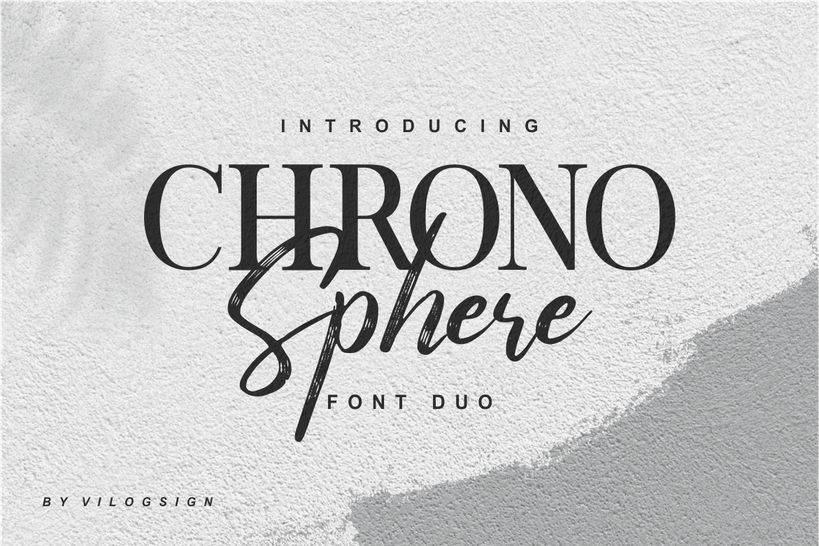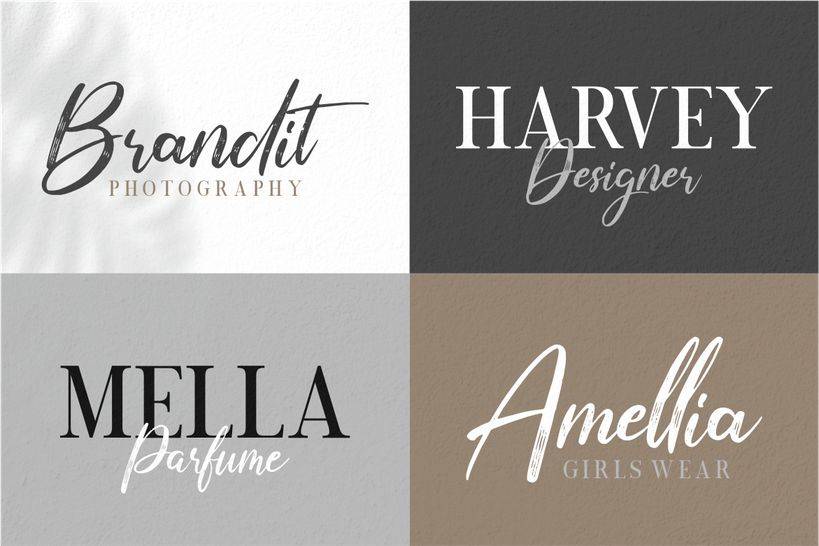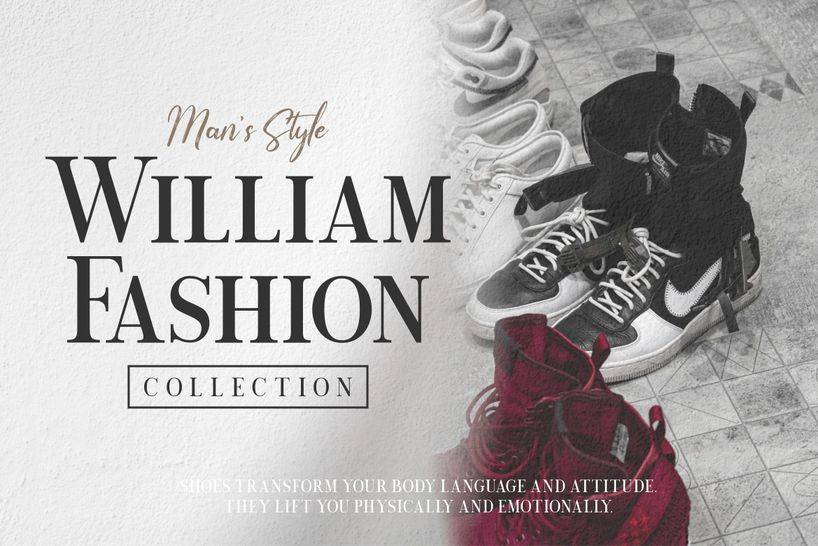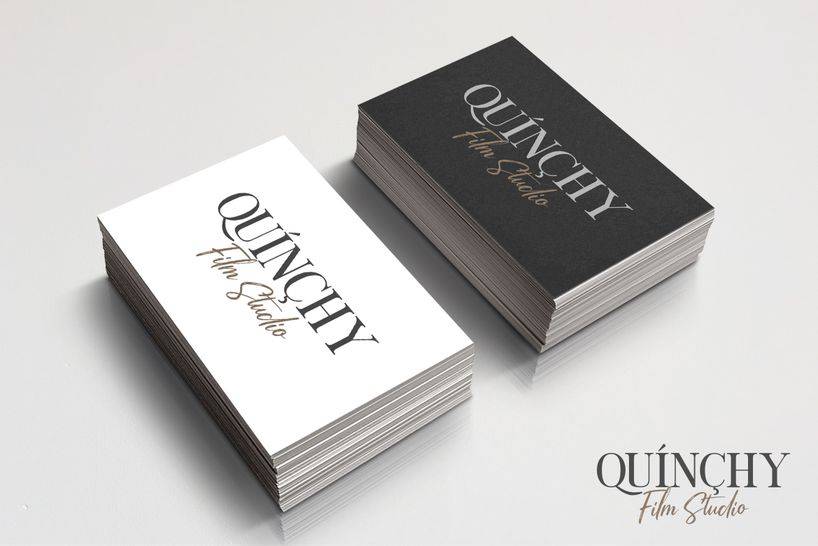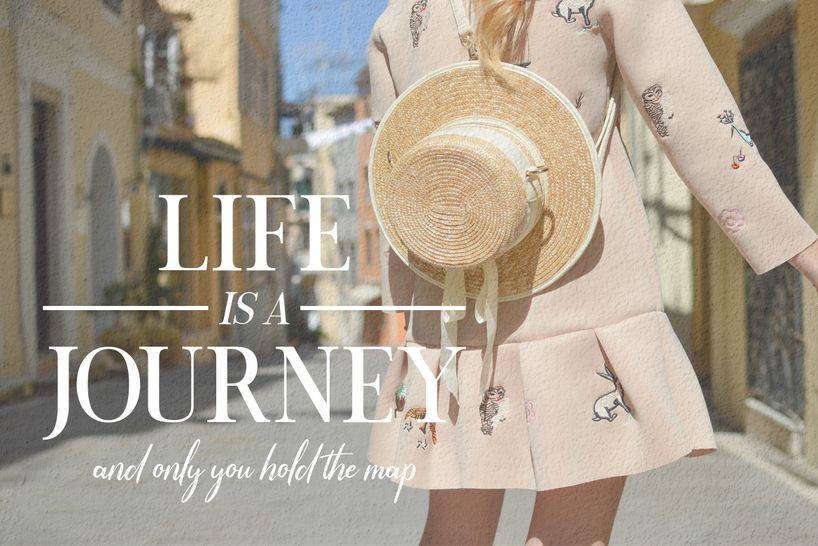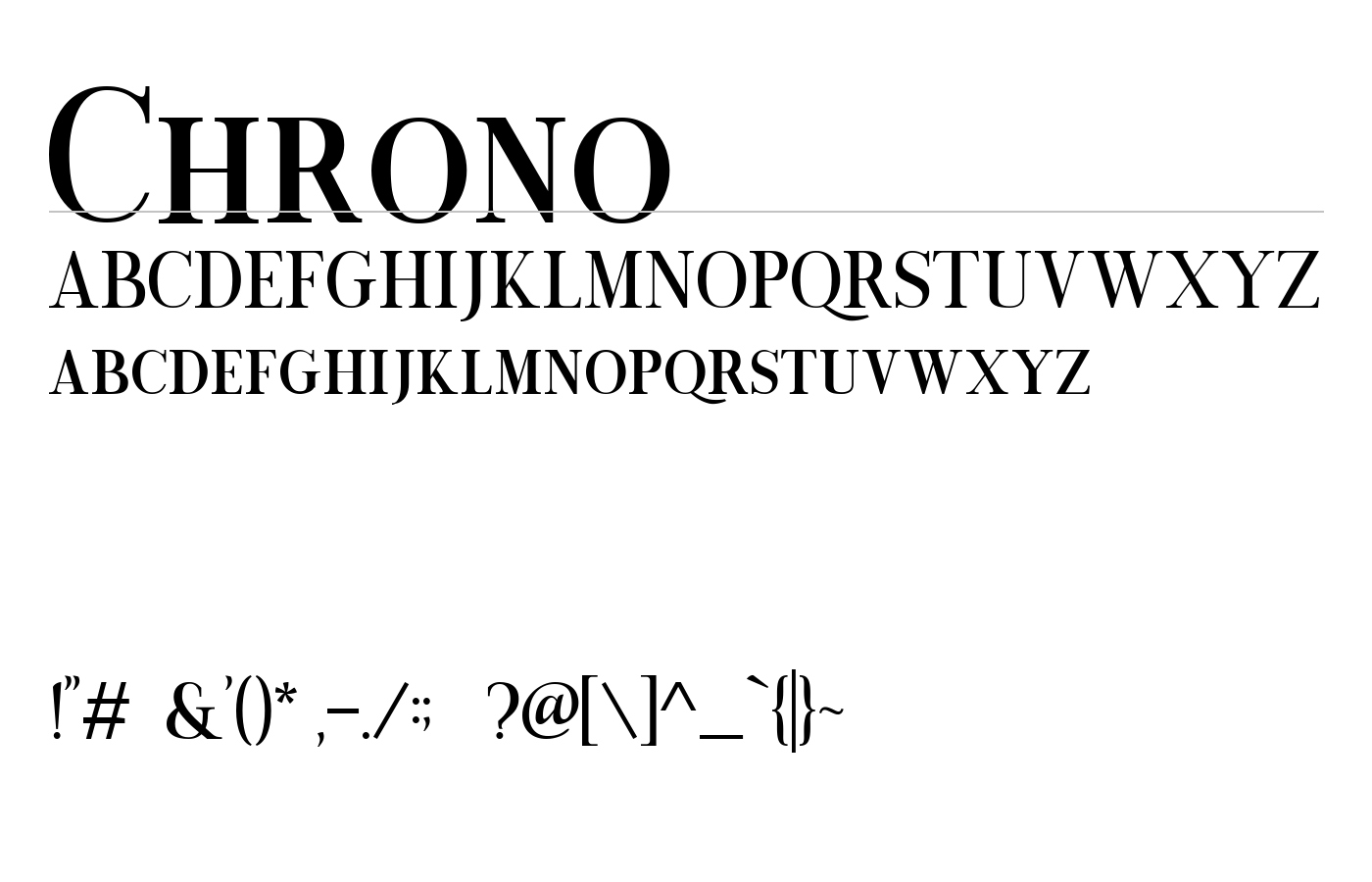
Chrono Sphere Font Duo is a refined serif typeface featuring elegant high contrast strokes and tall, narrow letterforms that evoke a classic, sophisticated feel. Its slender serifs and delicate details make it ideal for luxury branding, editorial headlines, and stylish logos where a timeless and graceful appearance is desired. This font balances traditional charm with modern clarity, perfect for designs that require both elegance and readability.
Chrono Sphere Font Duo
About Chrono Sphere Font Duo
| Font family | Chrono Sphere Font Duo |
| Designer | Vilogsign |